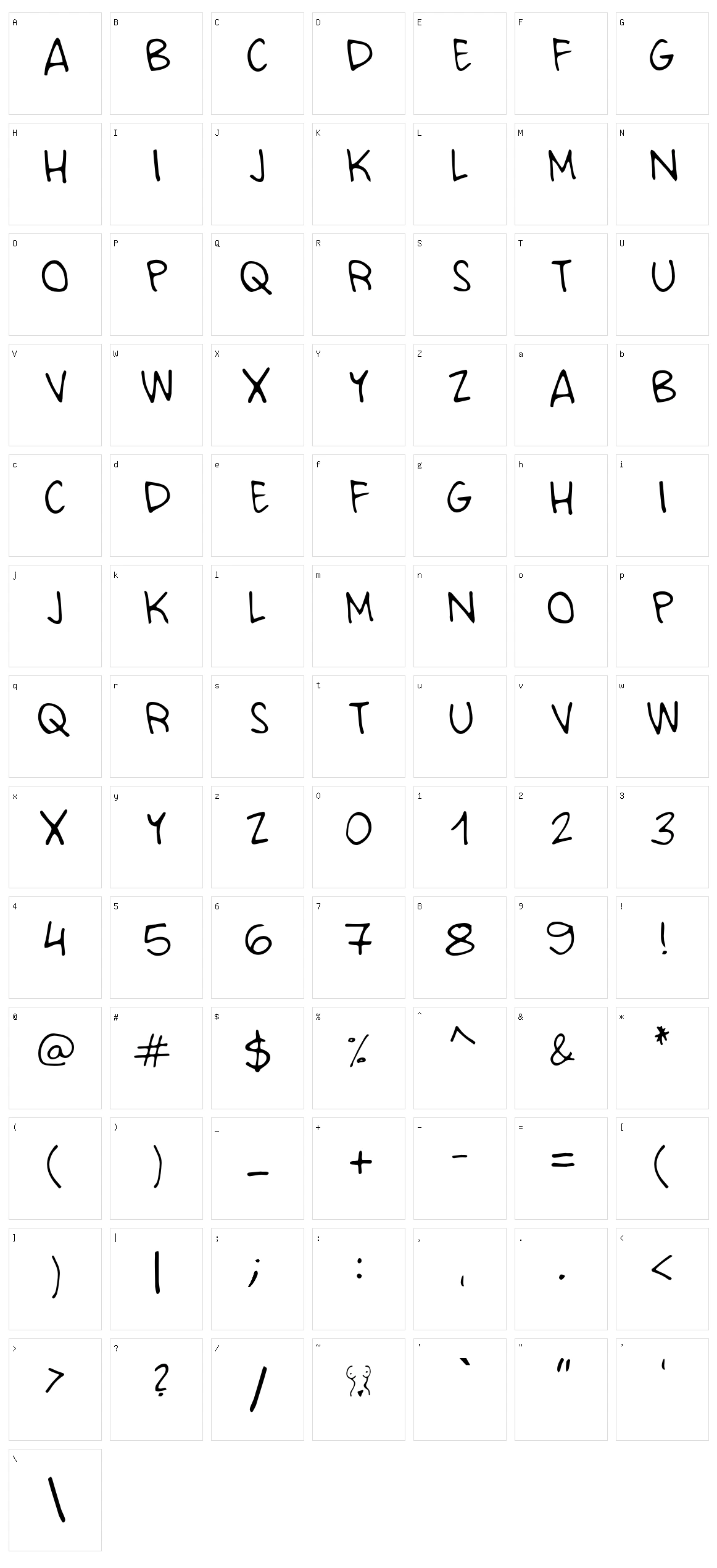
The free font Czinege is carefully designed by Viktor Szobota, showcasing a thoughtful balance of creativity and usability and falls under the Script font style. When you download the ZIP file, it contains only 18.57 KB of font files, making it lightweight and quick to download. Please review the license details below to understand permitted usage and distribution rights. If license information is not available, we recommend using this font for personal projects only or contacting the author directly for commercial usage permissions.